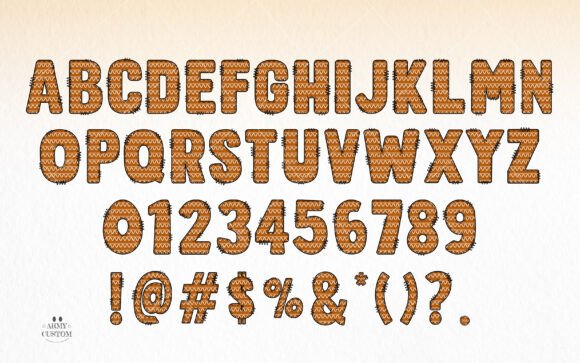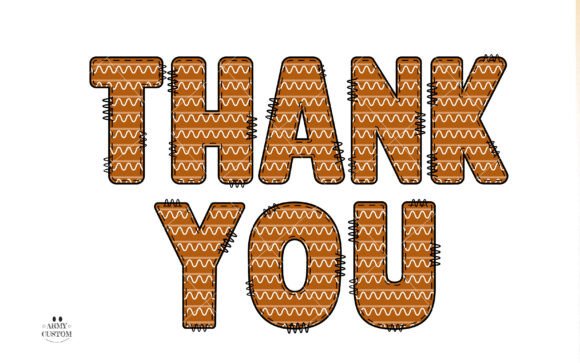
Introducing Gingerbread Army Font: The Ultimate Holiday Typography
Are you looking for a festive and fun font to elevate your holiday designs? Look no further than the Gingerbread Army Font, also known as the Gingerbread Christmas Cookie Doodle Alphabet. This enchanting holiday-themed typography is perfect for capturing the spirit of merry festivities and adding a touch of whimsy to your Christmas designs.
Inspiration from Delightfully Cute Christmas Decorations
The Gingerbread Army Font draws inspiration from delightfully cute and colorful Christmas decorations, bringing the magic of the holiday season to life. Every character in this font resembles a playful gingerbread doodle, complete with intricate details and a vibrant color scheme. Whether you’re designing holiday messages, festive graphics, or captivating Christmas designs, this font is sure to add a dash of fun and personality to your creations.
Perfect for Compelling Holiday Messages and Enchanting Festive Graphics
The Gingerbread Army Font is perfect for designers and crafters who want to create compelling holiday messages, enchanting festive graphics, and captivating Christmas designs. This font is ideal for a variety of projects, including:
- Festive graphics and social media posts
- Christmas decorations and signs
- Gift tags and wrapping paper
- Party decorations and banners
The Gingerbread Army Font is a fun and festive holiday typography that’s perfect for designers and crafters who want to add a touch of whimsy to their Christmas designs. With its playful gingerbread doodles and vibrant color scheme, this font is sure to capture the spirit of the holiday season. Whether you’re designing holiday messages, festive graphics, or captivating Christmas designs, the Gingerbread Army Font is the perfect choice.